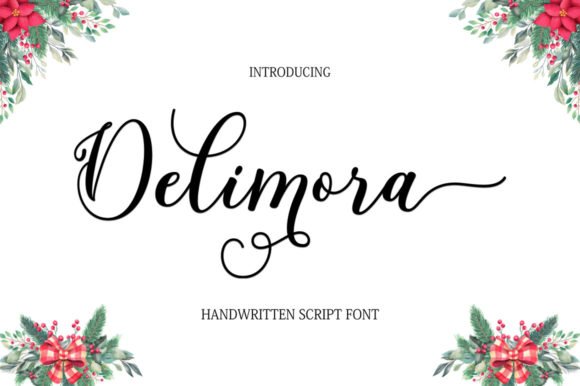
Have you ever found yourself in the midst of a creative frenzy, surrounded by scraps of paper, scribbled notes, and an endless stream of ideas? That’s exactly where I was when I stumbled upon the perfect font to elevate my designs – the Delimora Script Font. This stunning script font is more than just a pretty face; it’s a versatile tool for designers looking to add a touch of elegance and sophistication to their work.
With its handmade calligraphy style and decorative characters, the Delimora Script Font is a game-changer for designers seeking to create unique and eye-catching visuals. Whether you’re working on invitations, branding materials, or quotes, this font is sure to make your designs stand out from the crowd. Its dancing baseline adds a playful touch, making it perfect for a wide range of projects.
Delimora Script Font Key Features
- Unique Characteristics: Delimora Script features a beautiful, elegant script design with subtle flair and connection between letters, making it perfect for creative and artistic projects.
- Font Metrics: Includes advanced font metrics, such as ligatures, kerning, and glyph substitution, to ensure high-quality typography and precise control.
Delimora Script Font Review
As a designer, I’ve had the pleasure of working with many fonts, and Delimora Script is one that’s caught my attention. ✨ The first thing I noticed is the beautiful, flowing lines that evoke a sense of elegance and sophistication. The font is perfect for titles, headings, and other design elements where you want to make a statement.
- Delicate and refined, making it suitable for luxury brands and high-end designs.
- Highly legible, even at smaller font sizes, which is a must for any designer.
- Supports a wide range of languages, making it a versatile option for global designs.
However, like any font, Delimora Script has its limitations. ⚠️ The font can be quite ornate, which may not be suitable for all designs. It’s also worth noting that the font may not be the best choice for body text, as it can be quite dense and overwhelming.
Overall, I’m impressed with Delimora Script, and I think it’s a great addition to any designer’s toolkit. While it may not be the best choice for every project, it’s definitely worth considering for designs where you want to add a touch of sophistication and elegance.
Delimora Script Font Practical Application Guide
Delimora Script Font is ideal for creating elegant and sophisticated designs. Some common use cases include:
2. Branding and logo design.
3. Digital and print advertising.
4. Quotes and inspirational graphics.
Remember to experiment with different font sizes, colors, and styles to get the most out of Delimora Script Font.